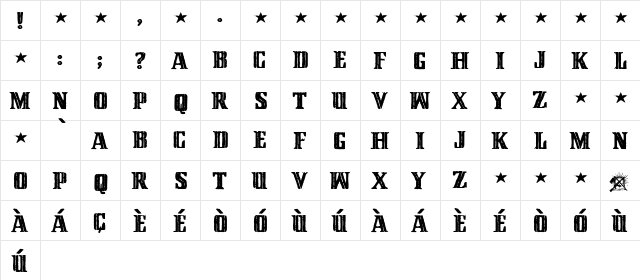
Cinquenta Mil Meticais Regular
Design Context for Cinquenta Mil Meticais Typeface
Cinquenta Mil Meticais is a composed and adaptable typeface that performs quietly and consistently across a wide range of design contexts.